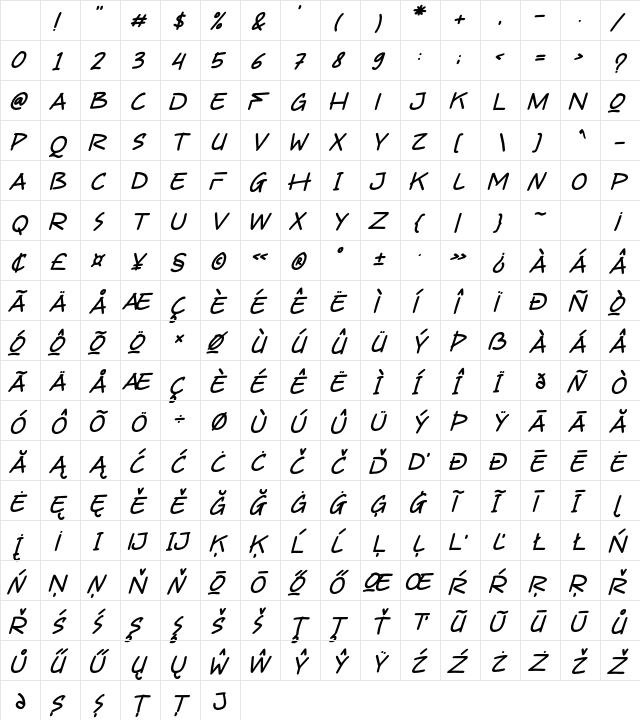
Complete Parekraf - Demo Italic Regular glyph index. Displaying only characters natively supported by Parekraf - Demo Italic Regular font.
Parekraf - Demo Italic is a composed and adaptable typeface that performs quietly and consistently across a wide range of design contexts. The slanted form adds forward momentum and visual energy.
Pro Tip: Use Parekraf - Demo Italic for emphasis, pull quotes, and subheadings where its slanted energy can add rhythm to the layout.